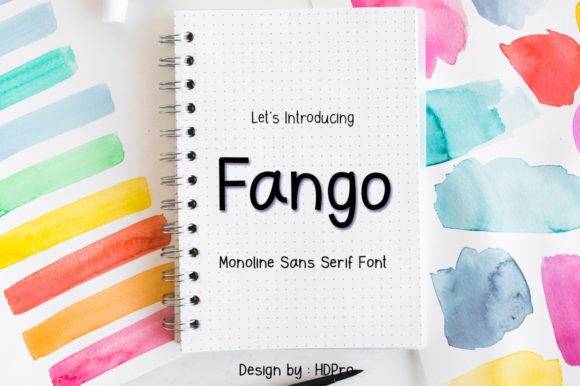
Unlock the Whimsy of Fango Font
You know that moment when you’re brainstorming a new craft project, and you just can’t seem to find the perfect font to match your vision? The one that will transport your creation from ordinary to extraordinary? That’s where Fango Font comes in – a delightful sans serif font that’s guaranteed to add a touch of whimsy to any project.
With its playful and cute design, Fango Font is the perfect choice for designers who want to inject a bit of personality into their work. Whether you’re creating a birthday card, a party invitation, or a DIY sign, Fango Font will add a charming feel that’s sure to delight. And the best part? It’s incredibly versatile, making it a valuable addition to any designer’s toolkit.
- Unique Character Set: Fango Font features a unique character set, including a wide range of ligatures, swashes, and ornaments, adding a touch of elegance and sophistication to any design.
- High-Quality Typography: Fango Font is designed with high-quality typography in mind, featuring precise letterforms, subtle texture, and expertly crafted kerning and spacing.
Fango Font Review
Fango Font is a stylish and modern font that caught my attention with its unique blend of geometric and organic elements. ✨ I love how it adds a touch of sophistication to any design project, making it perfect for luxury brands, high-end magazines, or upscale websites. ✨ The font’s bold and confident personality shines through, making it an excellent choice for headings and titles.
However, I do have a few concerns about Fango Font’s limitations. ⚠️ Firstly, the font’s readability can be a bit of an issue, especially in smaller font sizes. The intricate details and lines can sometimes make it difficult to distinguish between characters. ⚠️ Additionally, the font’s limited character set can be a challenge for languages that require a wide range of characters.
- Limited character set
- Readability issues in smaller font sizes
Overall, I would rate Fango Font 3.5 out of 5 stars. While it excels in terms of style and personality, its limitations hold it back from being a top-tier font. With some tweaks and refinements, Fango Font has the potential to become a true industry leader.
The Fango font is suitable for various design projects, including:
- Posters and advertisements
- Web design and user interface elements